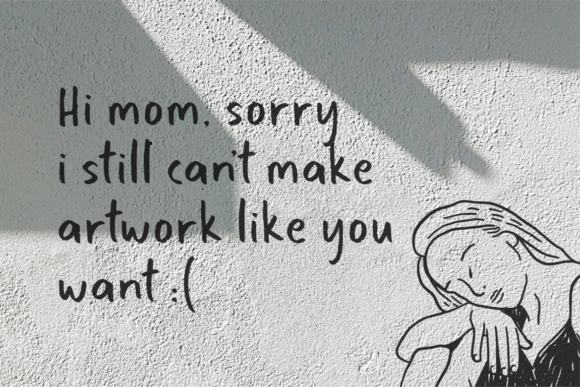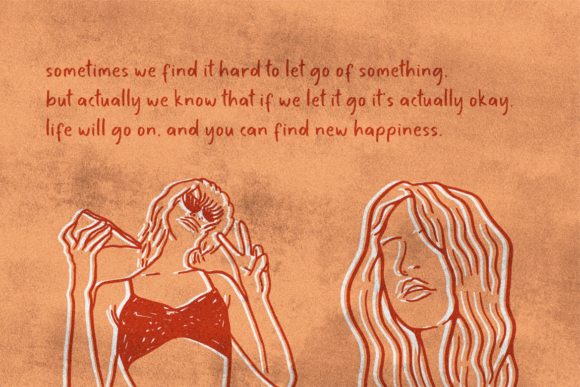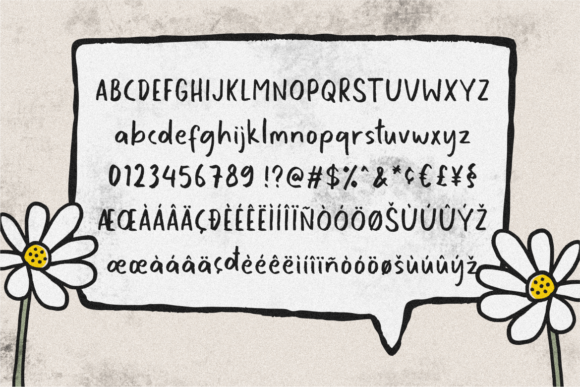
Introduction to Neokid Handwriting Font Font
Who else remembers scribbling down notes and doodles in their favorite notebooks as a kid? Those carefree days of creativity are what inspired the Neokid Handwriting Font Font, a delightful natural handwriting font that’s perfect for bringing a touch of childhood charm to your designs.
Whether you’re working on a social media post, a poster, or a packaging design, this adorable font is sure to capture the attention of your audience. Its high-quality design and transparent background make it a valuable resource for any creative project. And the best part? It’s available for free download, making it a must-have in every designer’s toolkit.
Key Features of Neokid Handwriting Font Font
- High-quality, unique handwriting font designed for creative projects, offering a personal touch.
- Includes a transparent background option, allowing for seamless integration with various design elements.
- Available in a range of sizes, from 12 to 72 points, making it suitable for various design applications.
- Features a high-resolution design, ensuring crisp and clear typography at 300 DPI (dots per inch).
- Perfect for use in creative projects, such as invitations, posters, social media graphics, and more.
Honest Review: Neokid Handwriting Font Font
I recently stumbled upon the Neokid Handwriting Font Font and was excited to try it out for a creative project. I must say, the high quality of this font is impressive. It’s perfect for designs that require a personal touch, and its versatility makes it a great addition to any designer’s toolkit.
- ✨ The font has a beautiful, handwritten feel that adds a unique touch to any design.
- ✨ The high quality of the font ensures that it looks great at any size, from small text to large headings.
- ✨ The font works well with a transparent background, allowing the designer to add a subtle texture or pattern behind the text.
- ⚠️ The font may not be suitable for designs that require a more formal or corporate look.
- ⚠️ The font can be a bit tricky to read in certain fonts sizes, especially for text that’s too small.
Overall, I’m really impressed with the Neokid Handwriting Font Font. It’s a great addition to any designer’s toolkit, and its high quality and versatility make it a fantastic resource for creative projects. Whether you’re looking to add a personal touch to your designs or simply want a unique font to spice up your projects, the Neokid Handwriting Font Font is definitely worth checking out.
To get the most out of Neokid Handwriting Font Font, experiment with different font sizes, colors, and styles. This font is highly versatile and can be used in a variety of creative ways. Don’t be afraid to try out new and unique combinations to make your design stand out.
Neokid Handwriting Font Font is perfect for a variety of creative projects, including wedding invitations, baby shower invitations, and social media graphics. This font’s high-quality design and transparent background make it ideal for overlaying text on images, creating a beautiful and eye-catching visual effect.
Q: Can I use the Neokid Handwriting Font Font with a transparent background?
Yes, the Neokid Handwriting Font Font supports transparent backgrounds, making it an ideal choice for designers who want to create high-quality designs with a seamless look. The font’s transparent background feature allows you to use it with various background images or colors, giving you more creative freedom in your design projects.